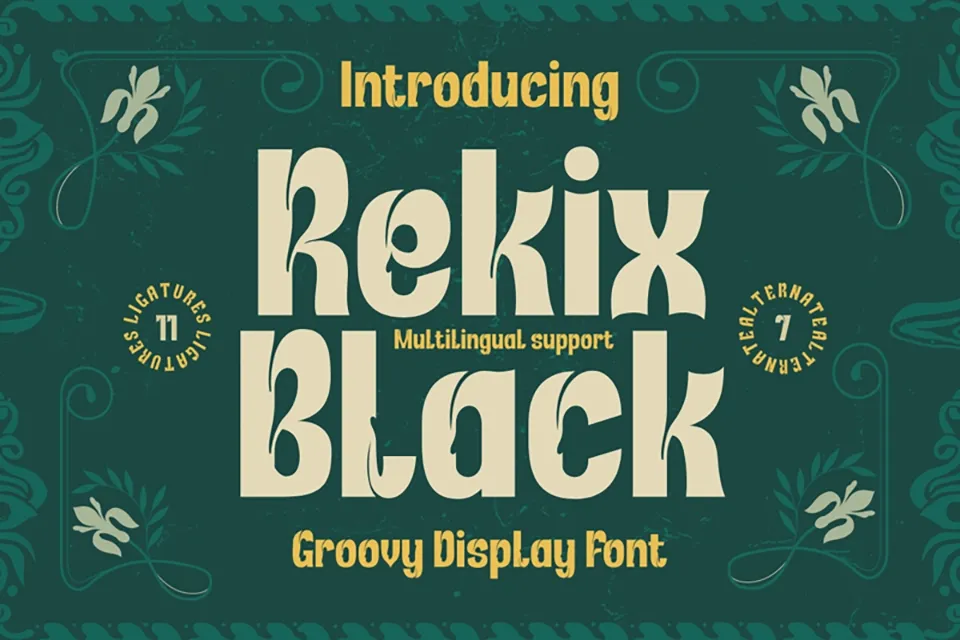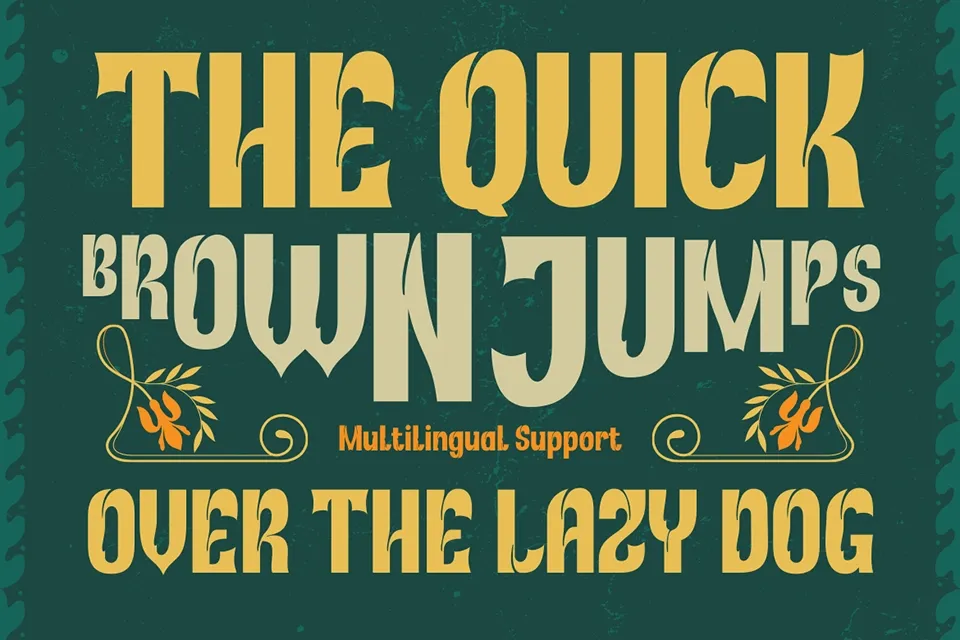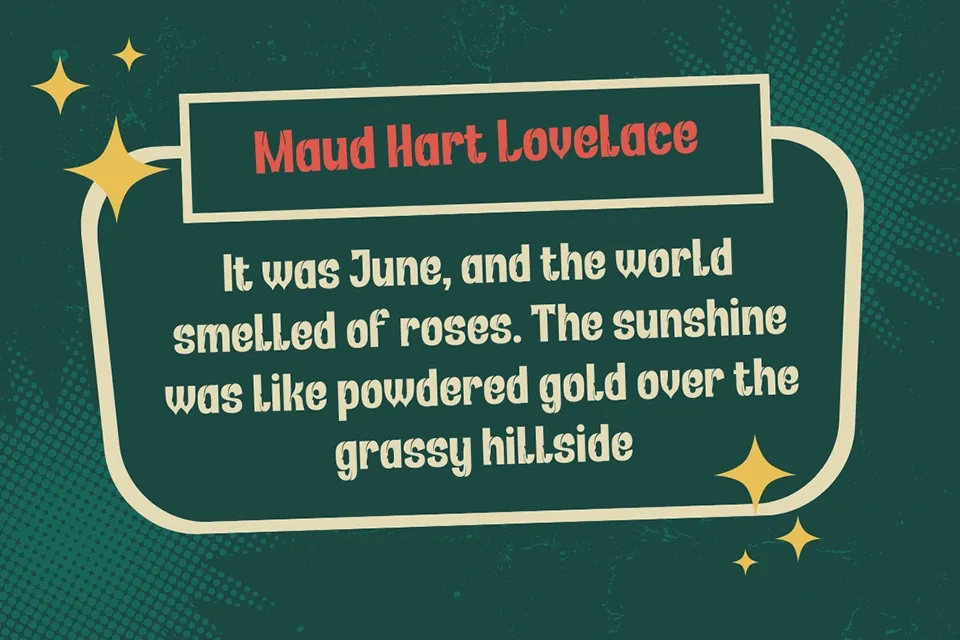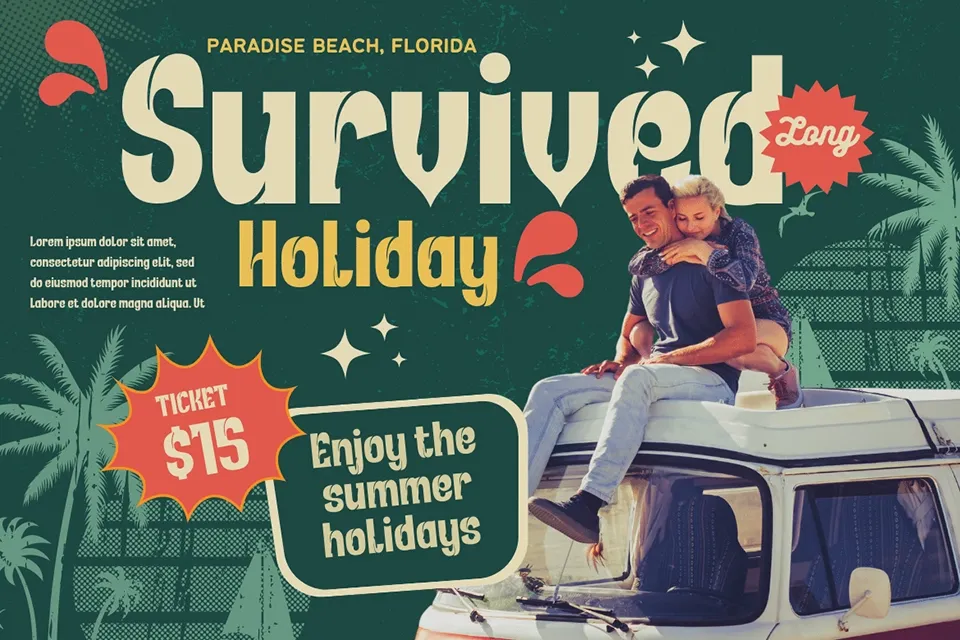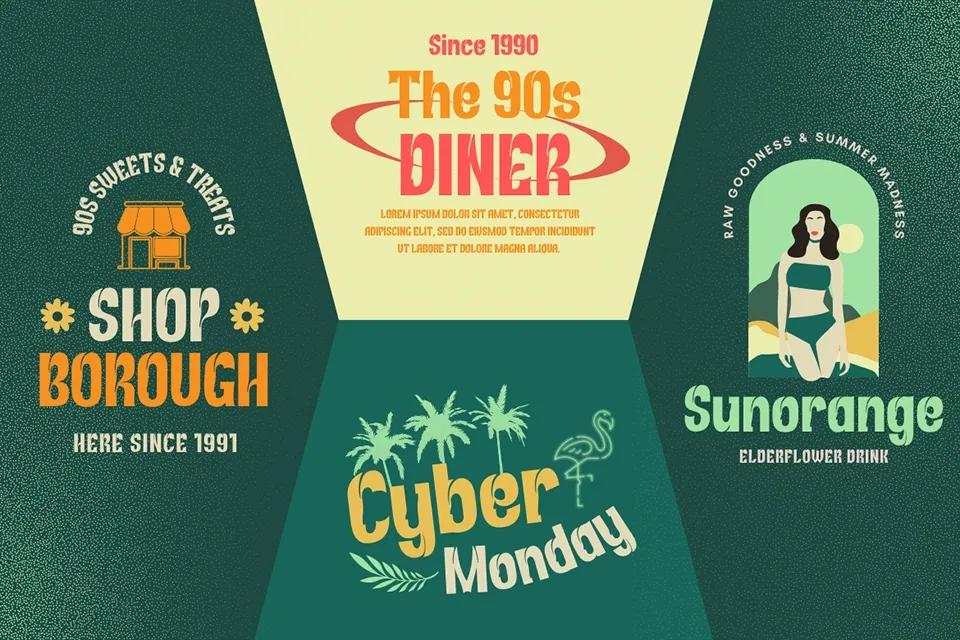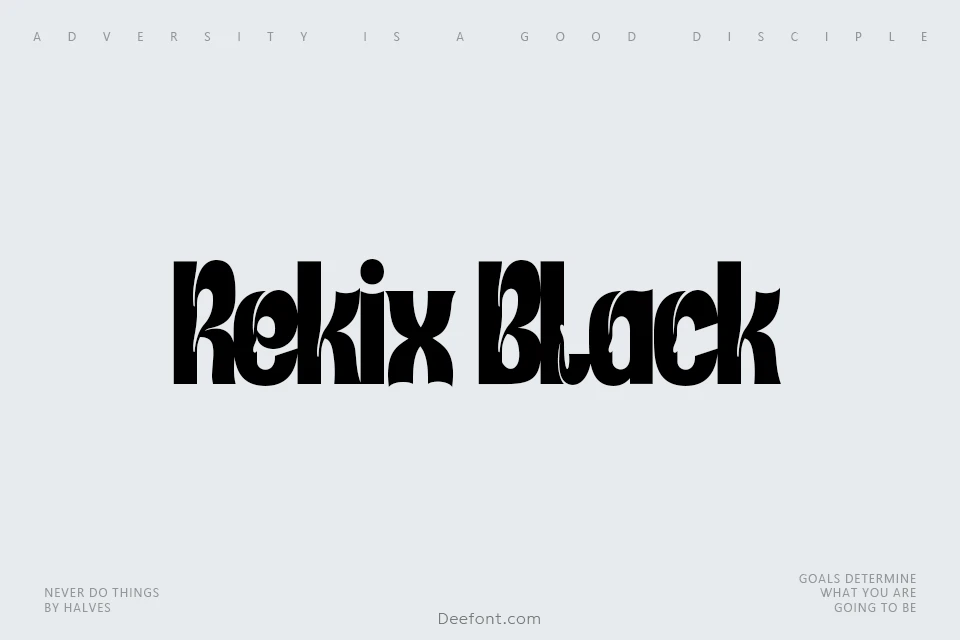
Rekix Black Font
Rekix Black Font is a groovy display font with a bold, retro-inspired style. It features playful letterforms, unique ligatures, and multilingual support, making it ideal for eye-catching headlines, posters, and creative branding projects. The font’s distinctive curves and decorative elements evoke a vintage yet modern vibe, perfect for adding personality and flair to your designs.